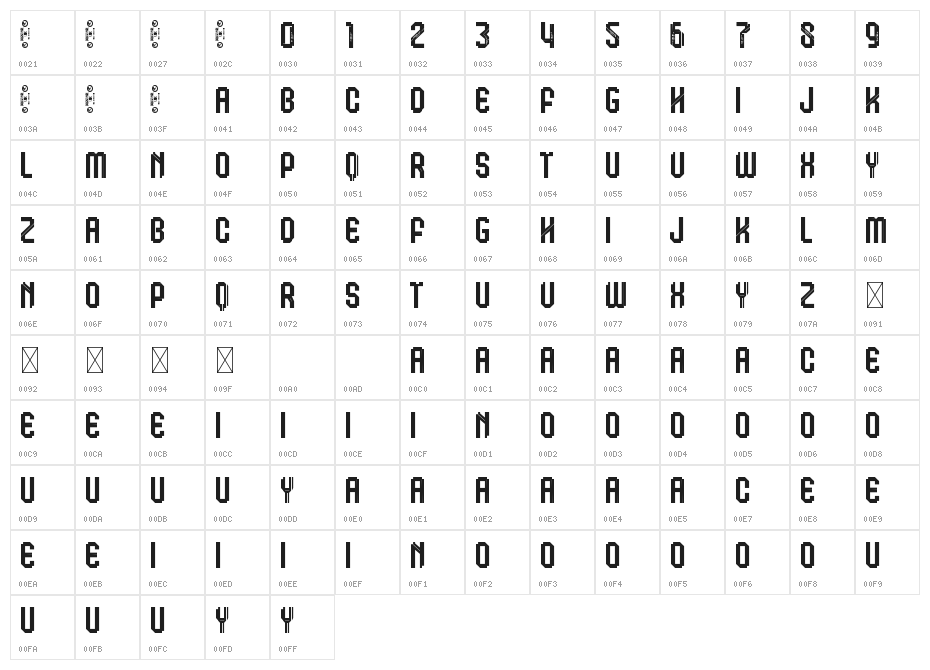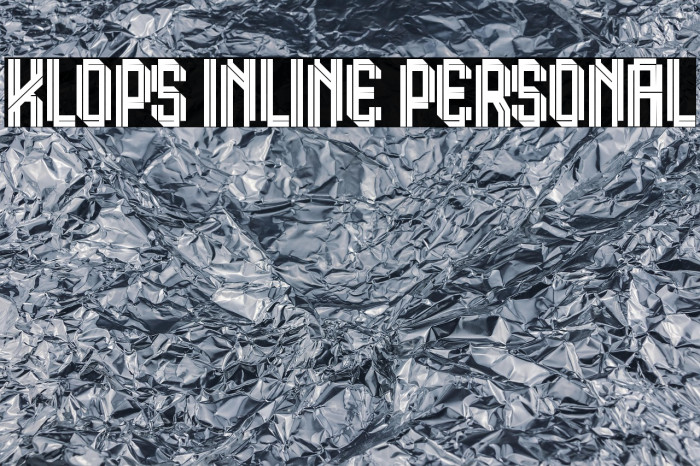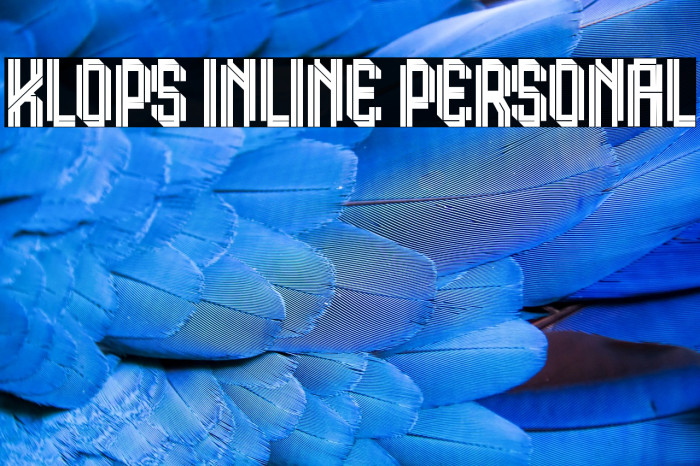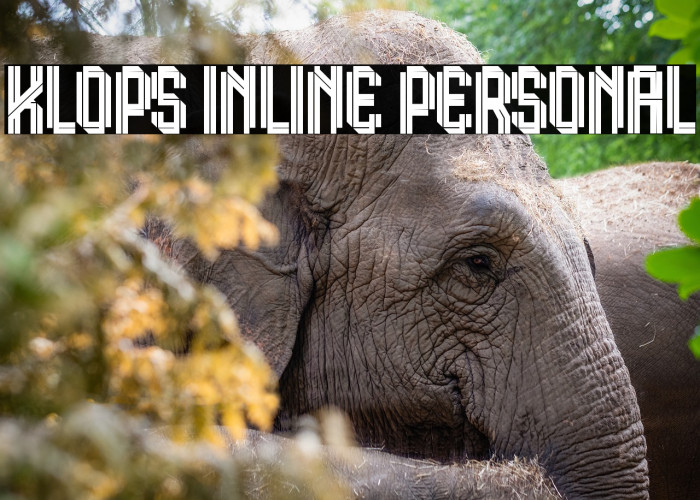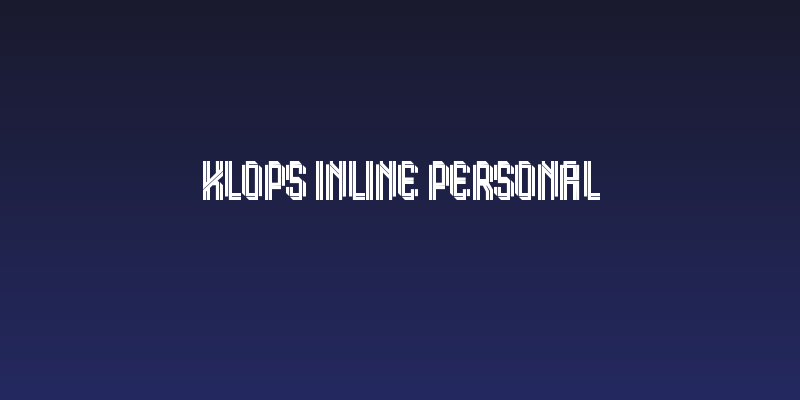
Klops Inline Personal Font
Klops Inline Personal Description
This font features a bold, geometric design with a distinct inline style that creates a layered, three-dimensional effect. The characters are constructed with sharp angles and straight lines, giving it a futuristic and industrial appearance. The uppercase letters are particularly striking, with a uniform height and width that enhances the font's structured look. The numerals and special characters maintain the same boldness and inline detailing, ensuring consistency across all glyphs. This font's unique style makes it stand out, offering a visually impactful option for various design applications.